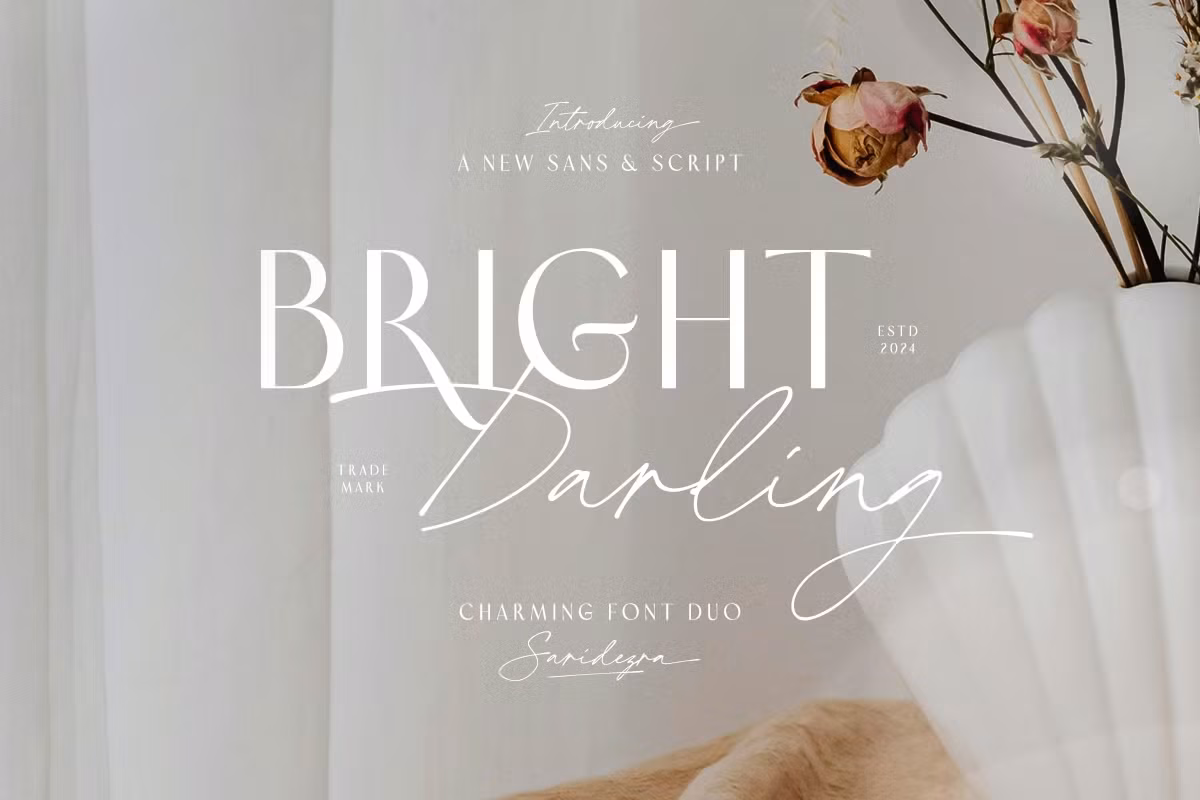
Bright Darling - Charming Font Duo Free Download is a delightful combination of two elegant typefaces: a playful, handwritten script and a clean, modern sans-serif. This duo is perfect for a variety of creative projects, including wedding invitations, branding, logos, social media graphics, and more.
The Bright Darling Script font adds a charming, personal touch with its flowing, handwritten feel, while the Bright Darling Sans provides a balanced, minimalist counterpart. Together, these fonts create a harmonious pairing that adds personality and elegance to any design.
Bring charm and versatility to your designs with the beautiful pairing of Bright Darling!